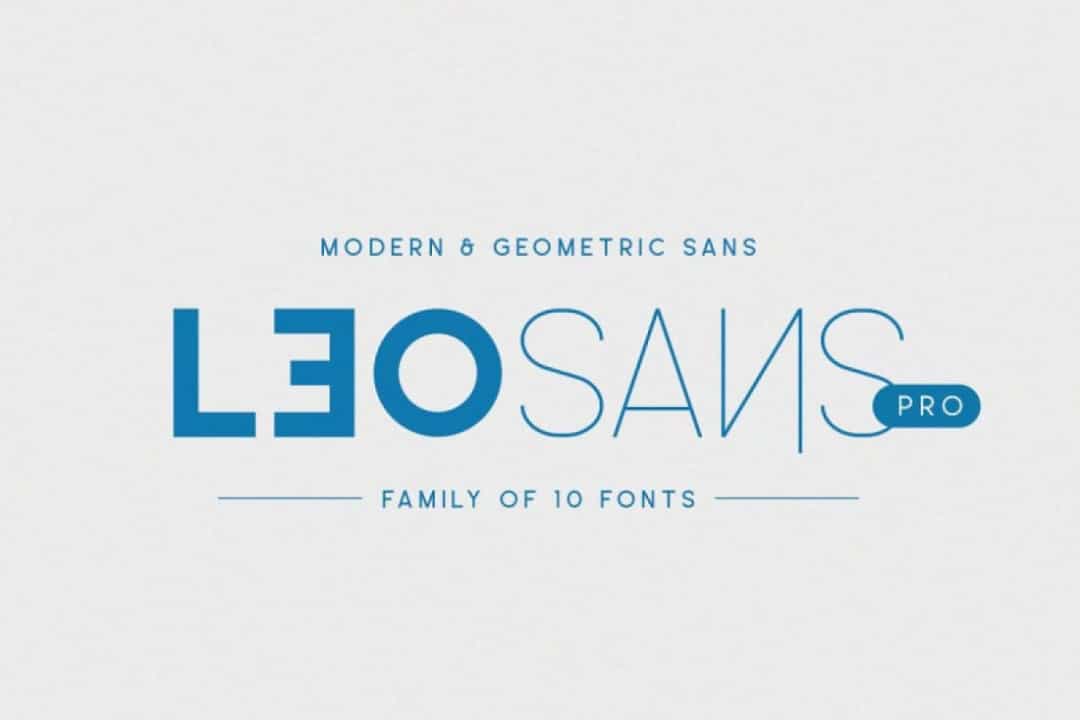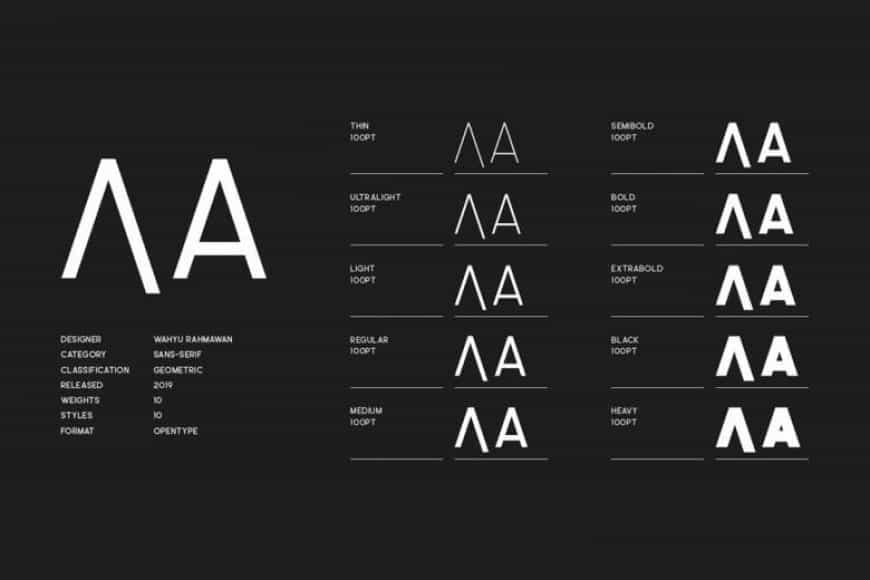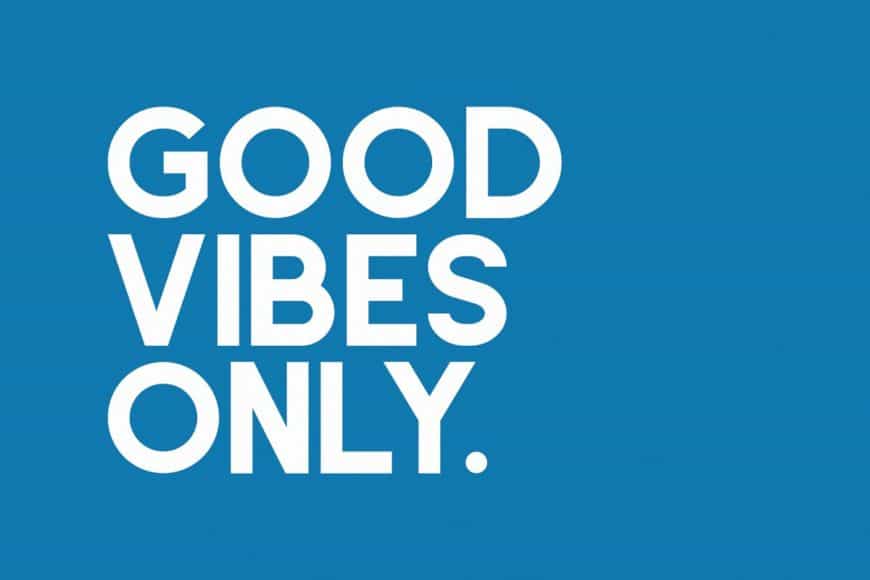
Leo Sans is a contemporary sans serif font that offers something a little different, peering into the future even. It has 10 weights with modern capitals and advanced OpenType features. Just like extended language support and all sorts of typographical elements expected today. As such it’s good for web use too as well as design work, corporate branding or editorial projects.